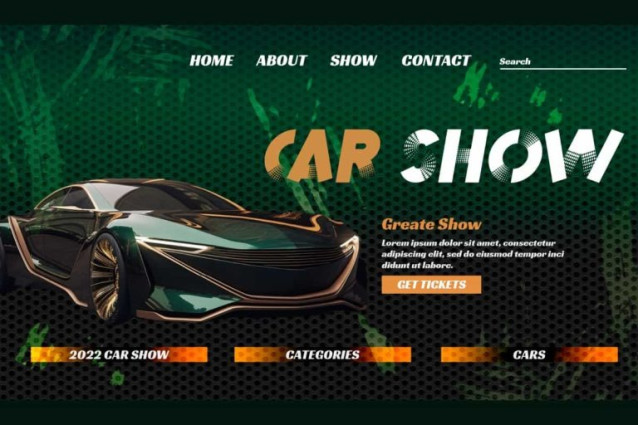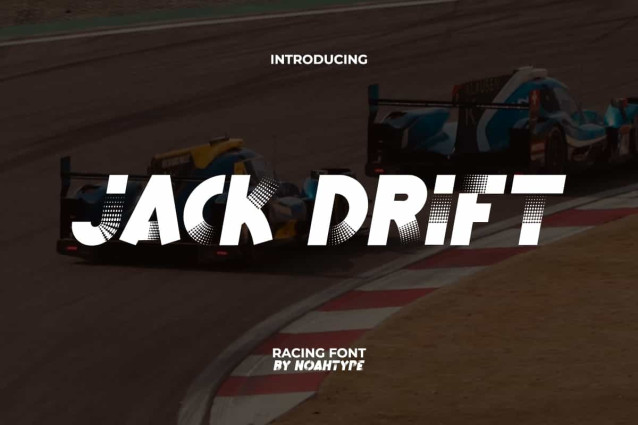
Jack Drift Font
Jack Drift Font is a speed track racing sporty font with a unique shape created by NoahType. This font has a unique look because it has tire tracks in it. This font will be suitable for a lot of projects, such as custom design, signage, business card, catalog, cover, label, poster, quotes, web, and more!
Jack Drift Font includes full set of Uppercase and Lowercase Basic Characters, Numerals and Punctuation. This font has an attractive appearance that will make you believe it is the perfect choice for many industries, such as sports, racing, game, automotive, advertisement, café, event organizer, fashion, printing, publishing, stuff, etc.